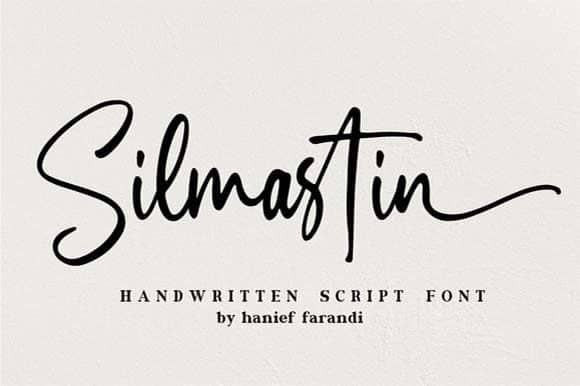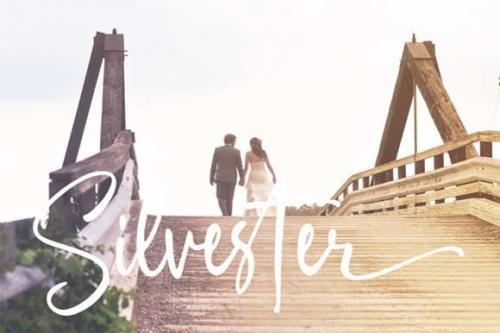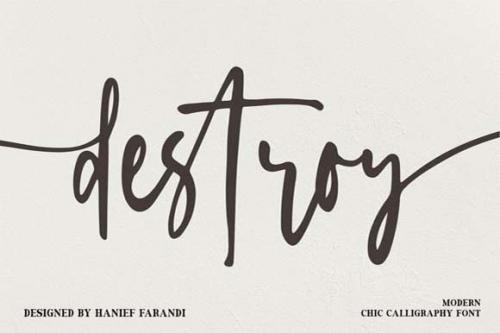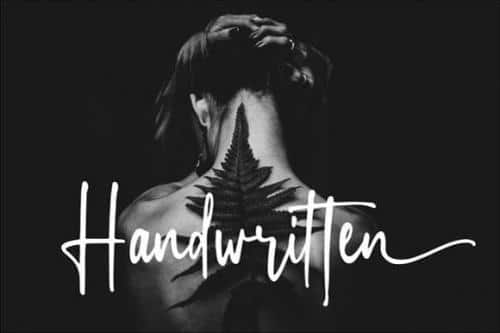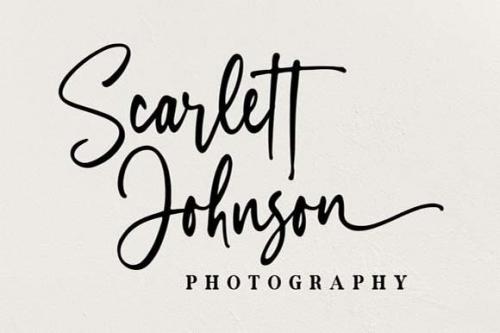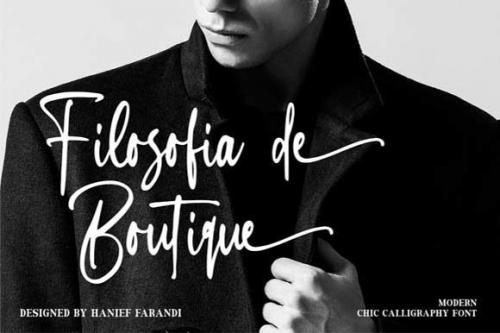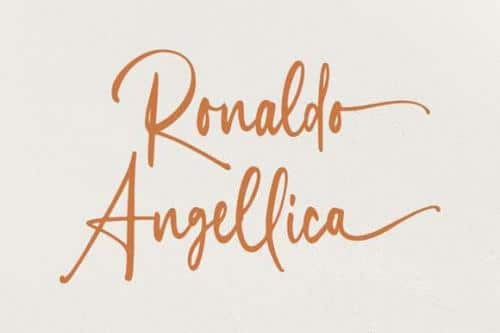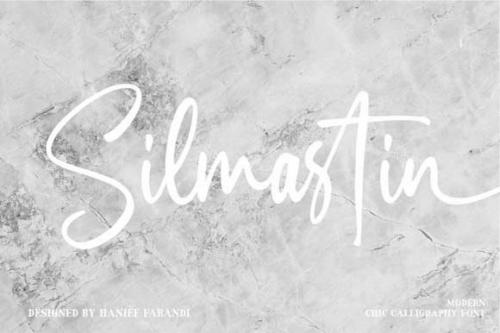
Silmastin is a cute and casual handwritten font with an incredibly friendly feel. It features gorgeous swashes and ligatures that make this script incredibly versatile. Whether you’re looking for fonts for Instagram or calligraphy scripts for DIY projects, Silmastin will turn any creative idea into a true piece of art!
- Designer: Hanzel Studio